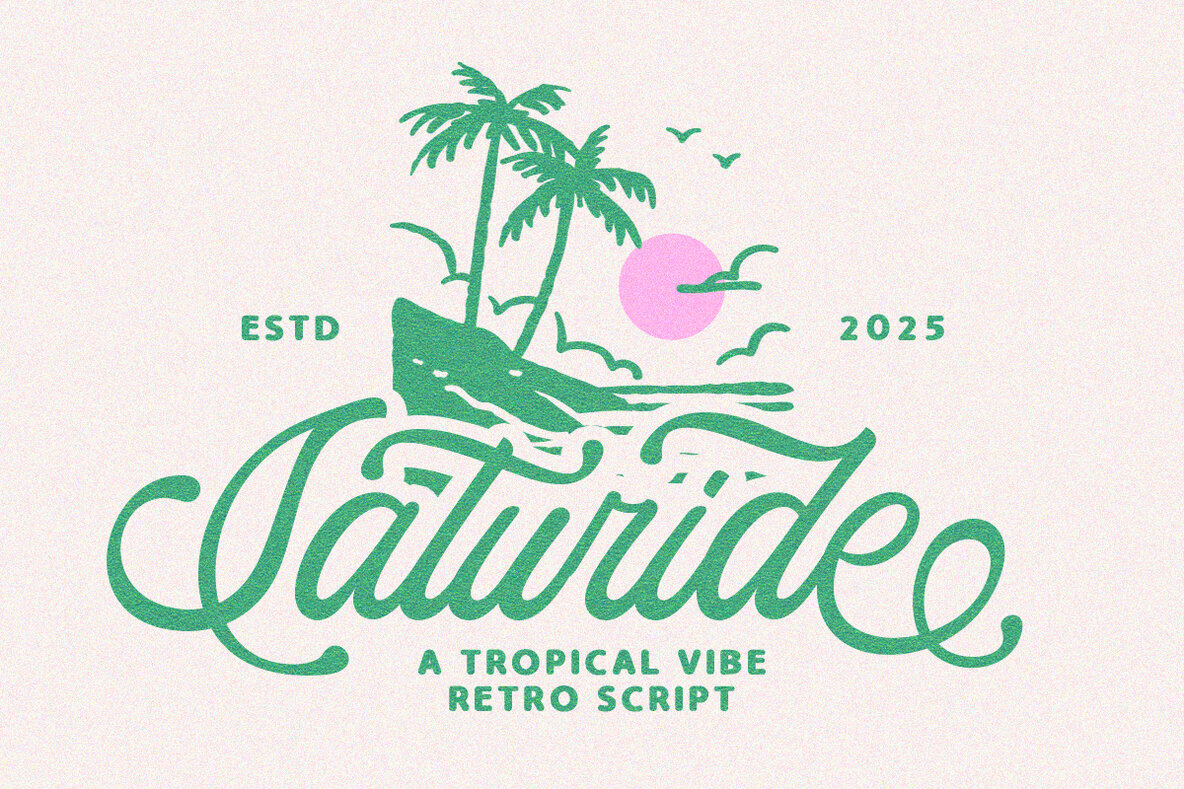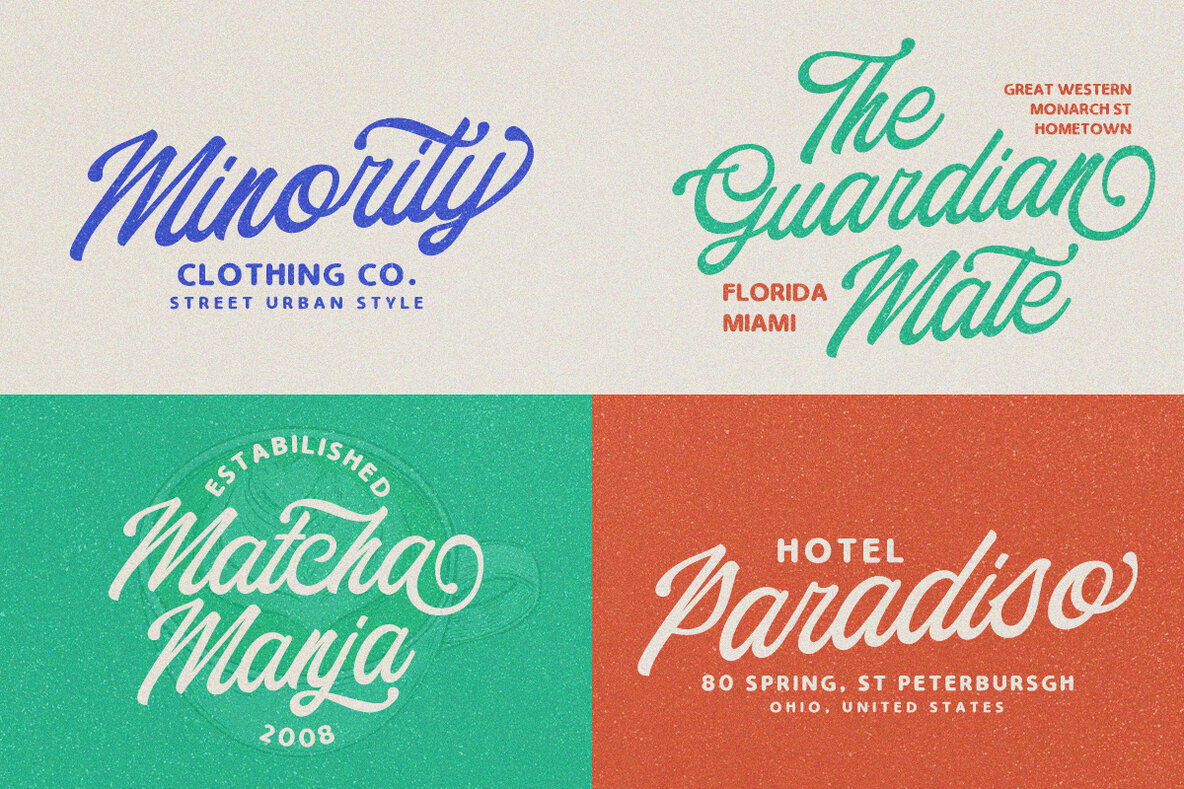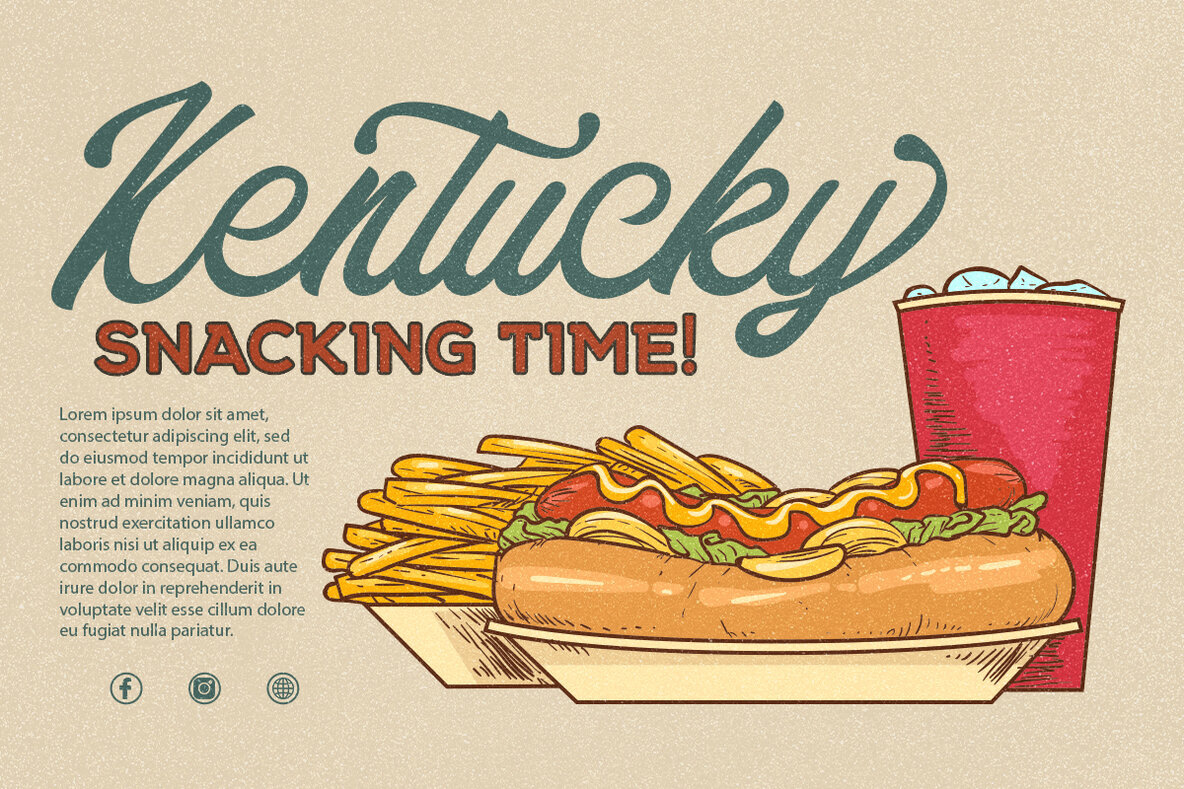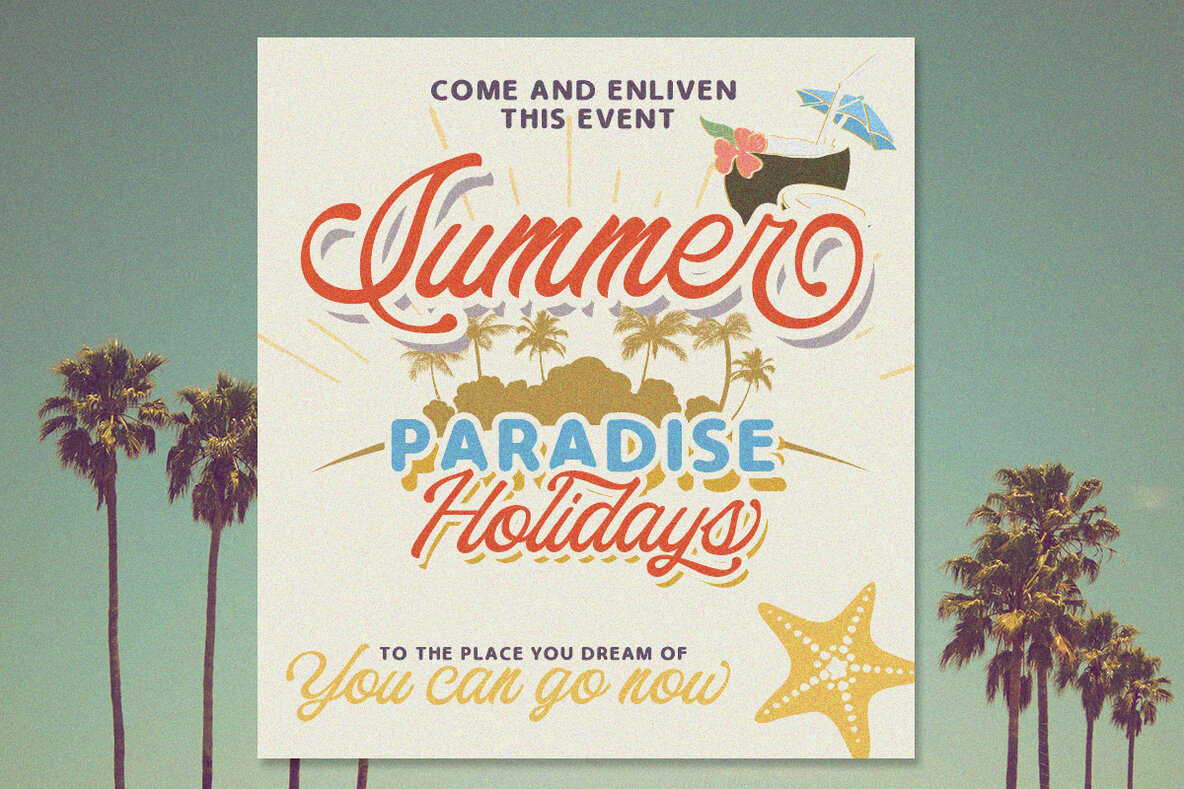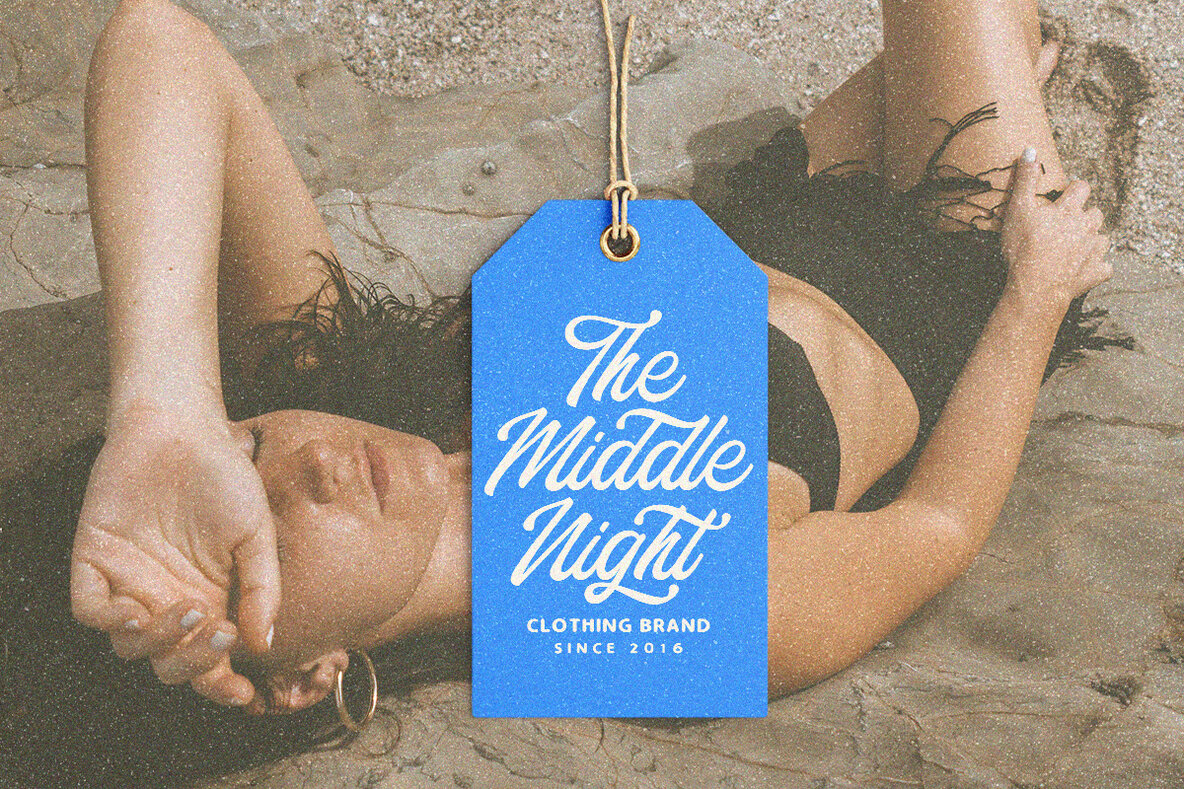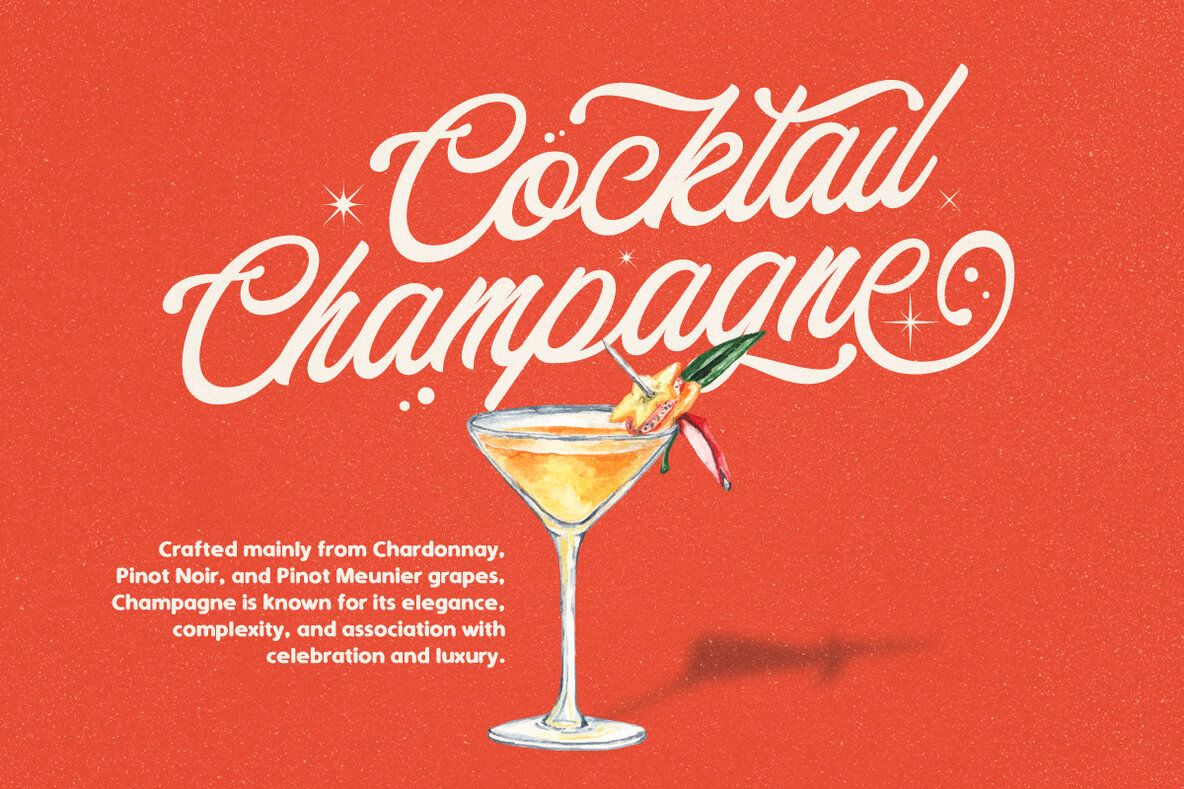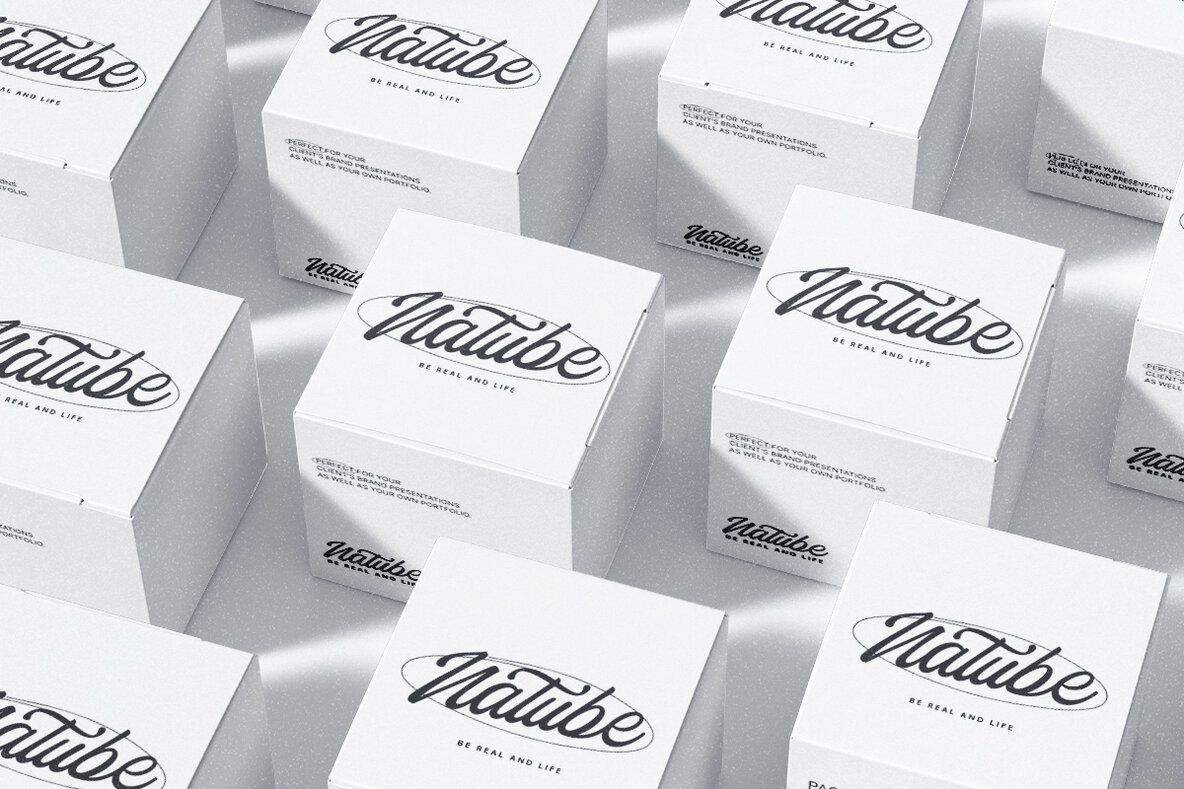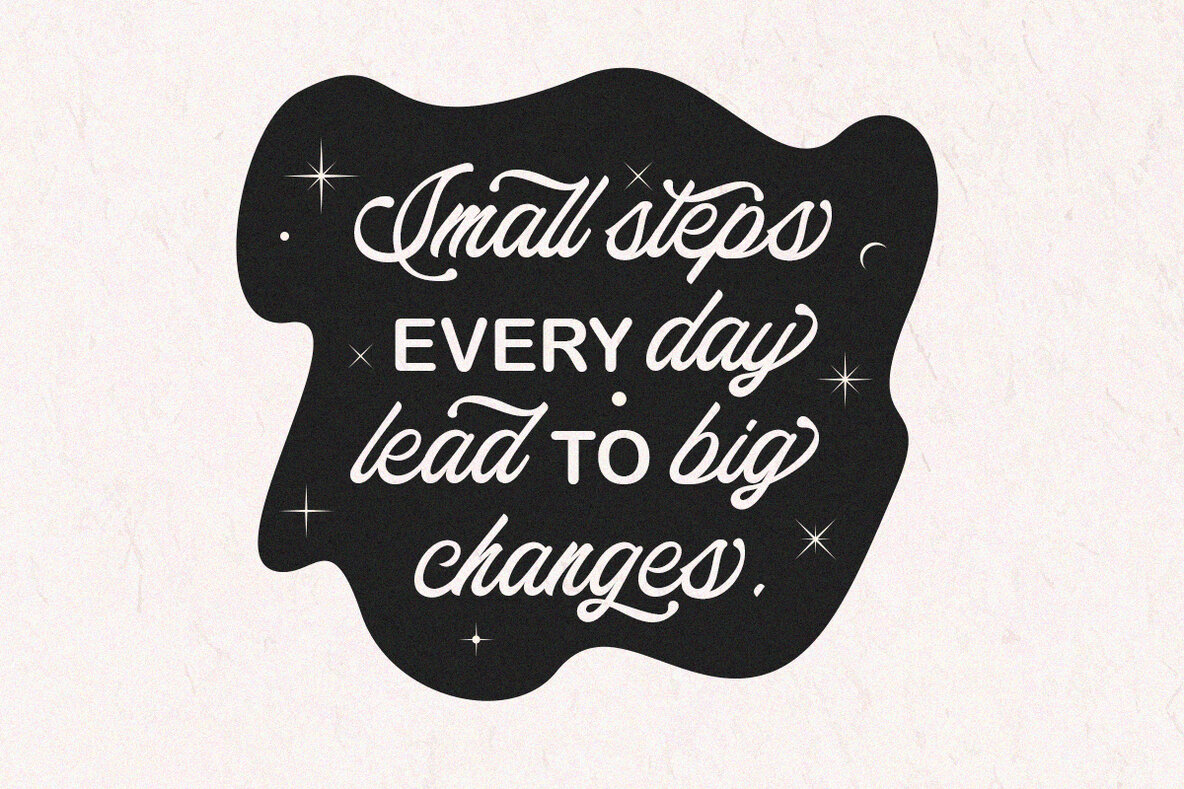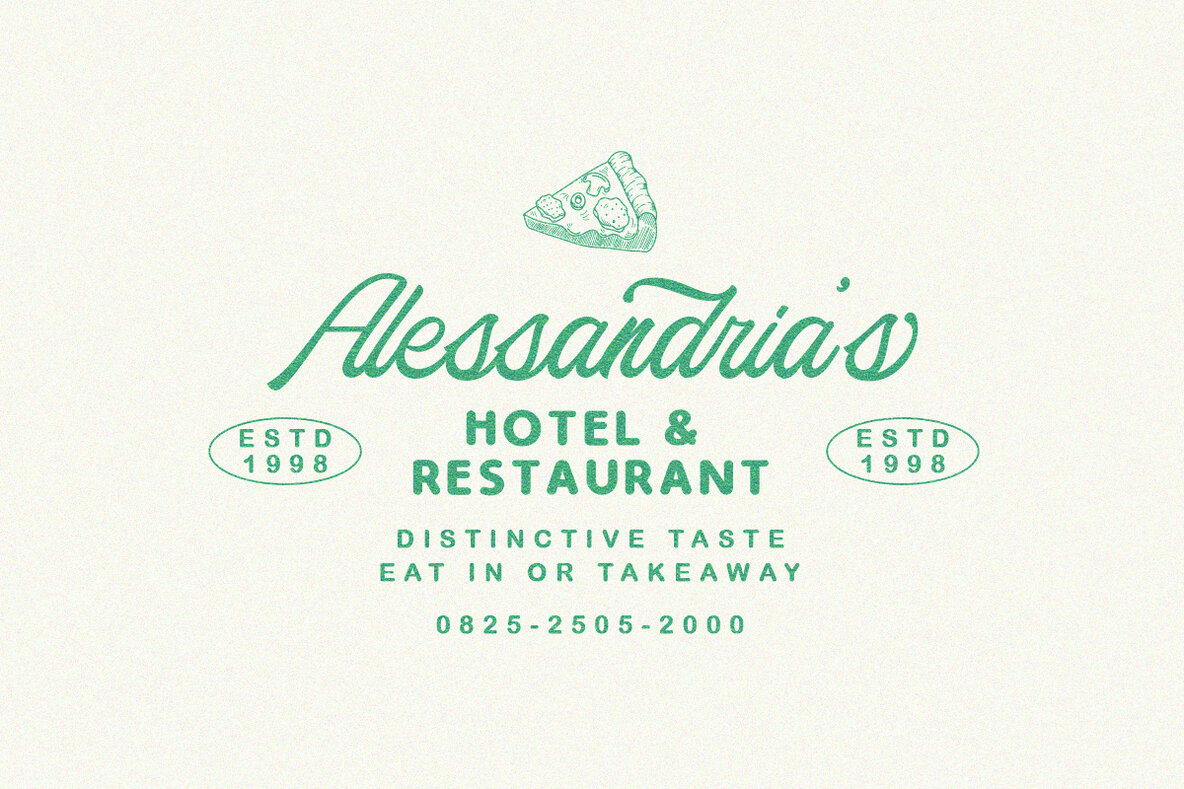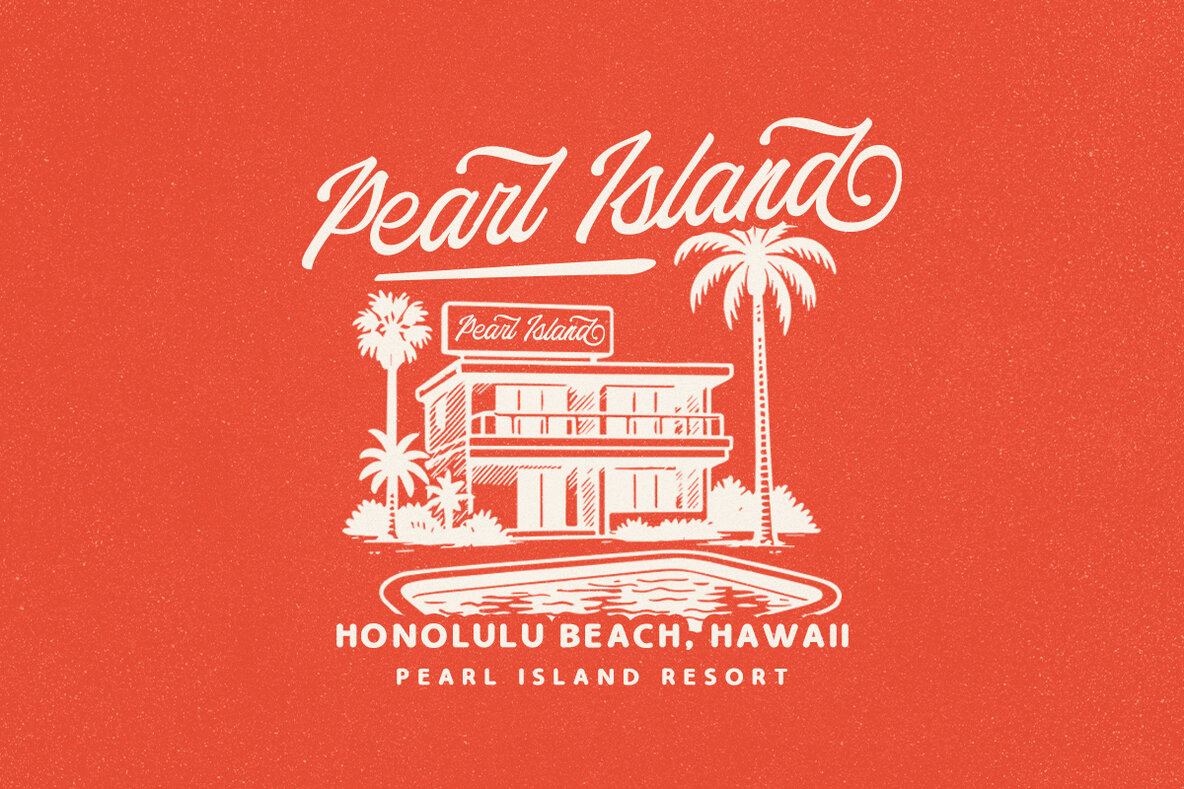
Saturide Font
Saturide Script
Saturide Script is a dynamic confluence of modern vintage, retro influences, and classic American traditional styles. It effortlessly enables you to craft handwritten letters that convey authenticity and warmth. This script is particularly suited for logos, handwritten quotes, product packaging, headers, posters, merchandise, social media graphics, and greeting cards.Saturide Script: A Blend of Vintage and Contemporary